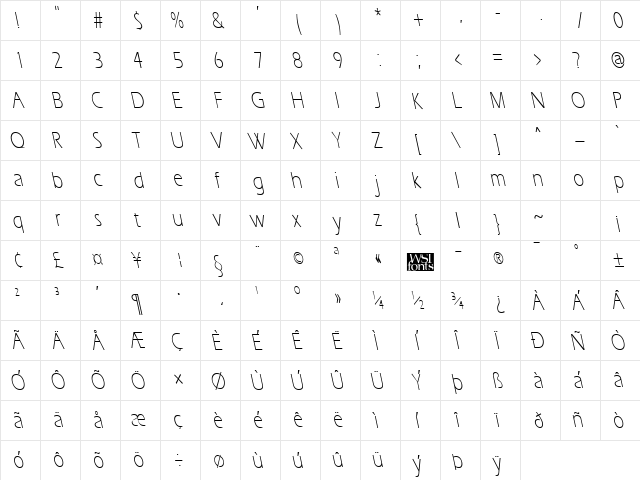
ErgoeLightCondBS Regular
Design Context for ErgoeLightCondBS Typeface
ErgoeLightCondBS offers clean, dependable letterforms without strong stylistic allegiance, making it a practical choice for designers who need flexibility. The delicate stroke weight brings airiness and refinement to layouts. Its narrow stance lets it pack a punch even in space-constrained designs.